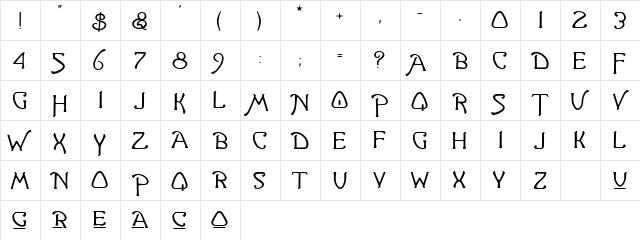
Ganelon Regular
Design Context for Ganelon Typeface
Ganelon is a composed and adaptable typeface that performs quietly and consistently across a wide range of design contexts.